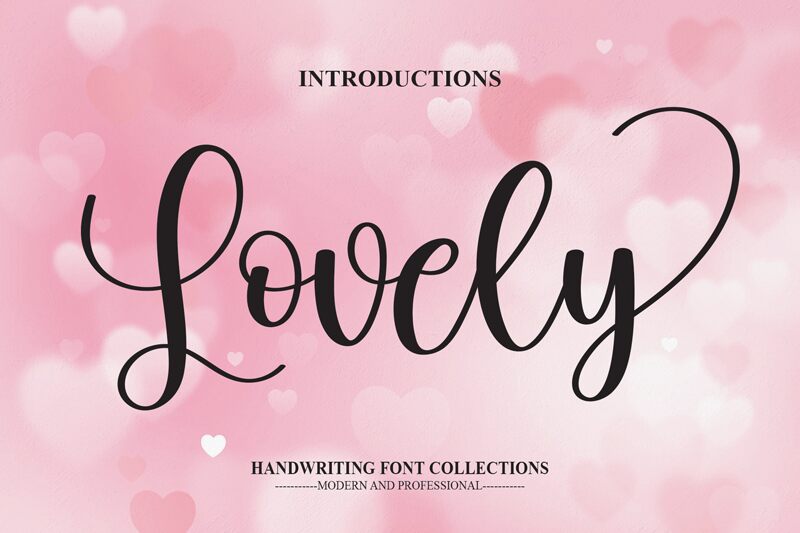
Lovely
Lovely, the elegant calligraphy font designed by scratchones, is perfect for adding a touch of sophistication to any project. Its semi-light weight exudes grace and refinement, making it ideal for wedding invitations, love letters or romantic quotes. But Lovely's versatility extends beyond romance. Its flowing script also lends itself well to branding and logo design, adding a touch of class to fashion labels, beauty salons or upscale restaurants. Let Lovely elevate your next project with its charming and refined aesthetic.
the latest style letters are perfect for wall displays, wedding invitations, social media post logos, advertisements, product packaging, product designs, labels, photography, watermarks, invitations, stationery, and any project that requires taste handwriting.